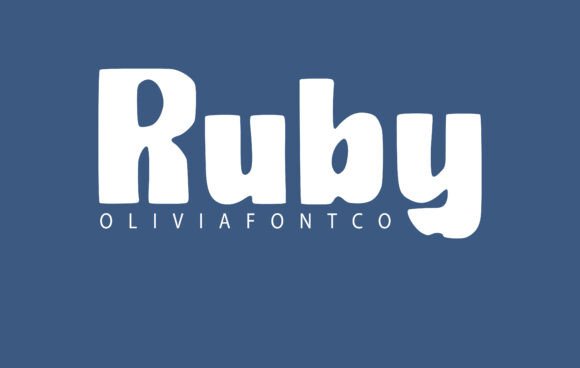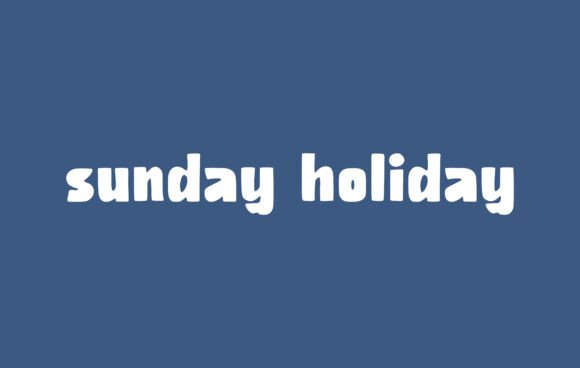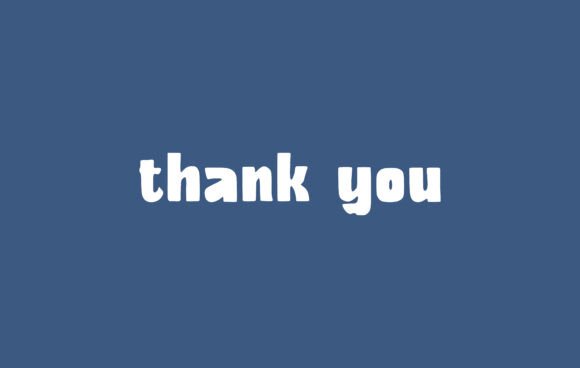
Ruby Font: A Playful Handwritten Font for Cricut & DIY Projects
About the Ruby Font
We are excited to introduce Ruby Font, a must-have typeface for any serious designer. Ruby font is an authentic handwritten font with a romantic touch. Expertly designed to be a true favorite, this font has the potential to take your creative ideas to the highest level
Ruby’s romantic, handwritten style shines in headlines, short text blocks, and branding applications where a touch of personal warmth is desired. It works particularly well for wedding stationery, logos for boutique businesses, or social media posts needing a handcrafted feel. However, its legibility suffers in extended body copy or UI elements requiring high readability.
For optimal visual balance, pair Ruby with a clean sans-serif like Montserrat for a modern contrast or a classic serif such as Garamond for a more traditional feel. A simple geometric sans-serif would also create a striking juxtaposition, enhancing Ruby’s handwritten charm.
Ruby projects a personality that is both elegant and approachable, making it ideal for brands focused on intimacy, craftsmanship, or personal connection. Avoid using it where a highly formal or strictly professional image is required.
Ruby Font Usage Examples
Ruby Font Example